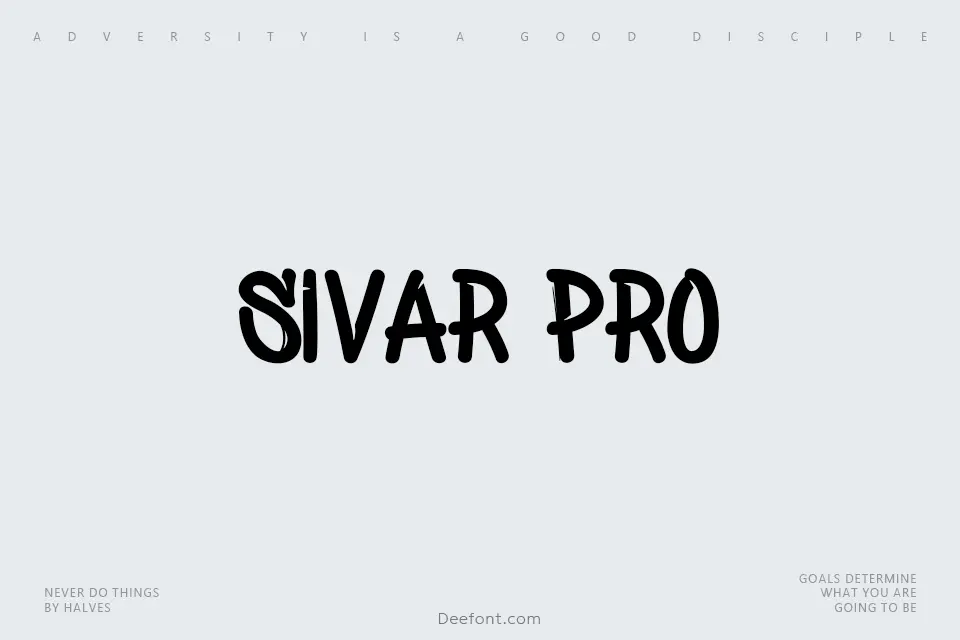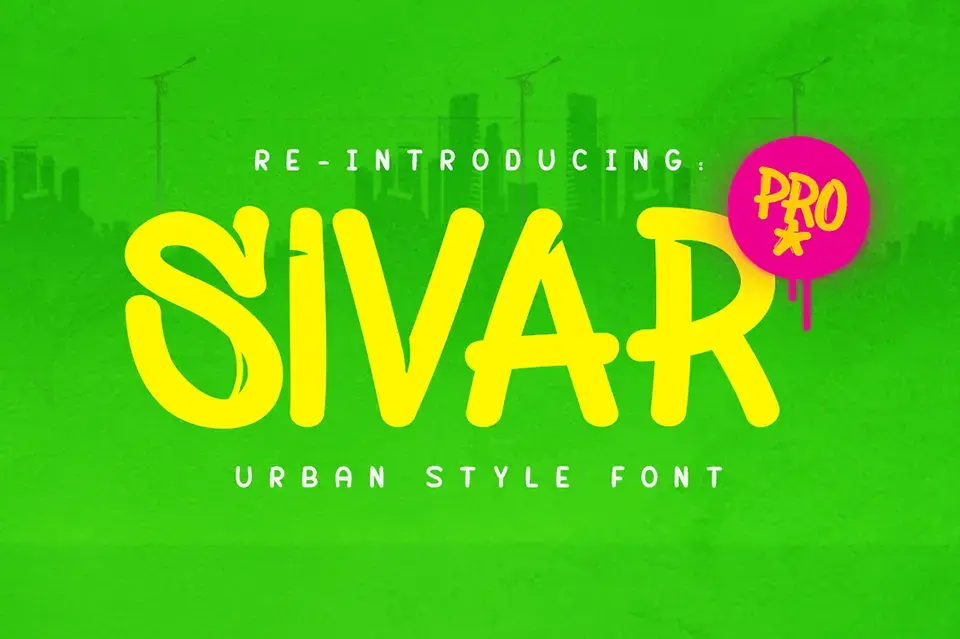
Sivar Pro Font
Sivar Pro is a dynamic street tag urban style inspired display font designed for creating bold typographic statements. This graffiti-influenced typeface excels at rendering short words and display purposes with distinctive character, making it ideal for creative projects requiring an edgy, contemporary aesthetic. The font delivers authentic graffiti aesthetics while maintaining legibility across various design applications.